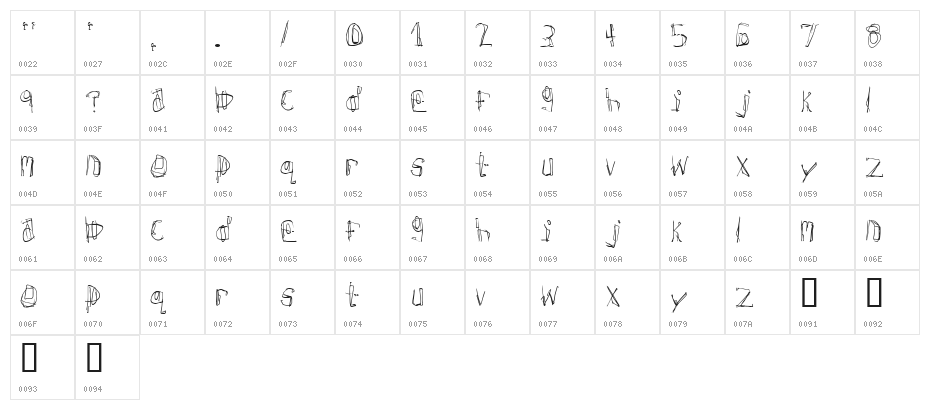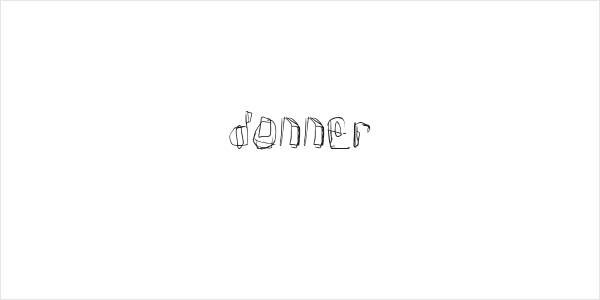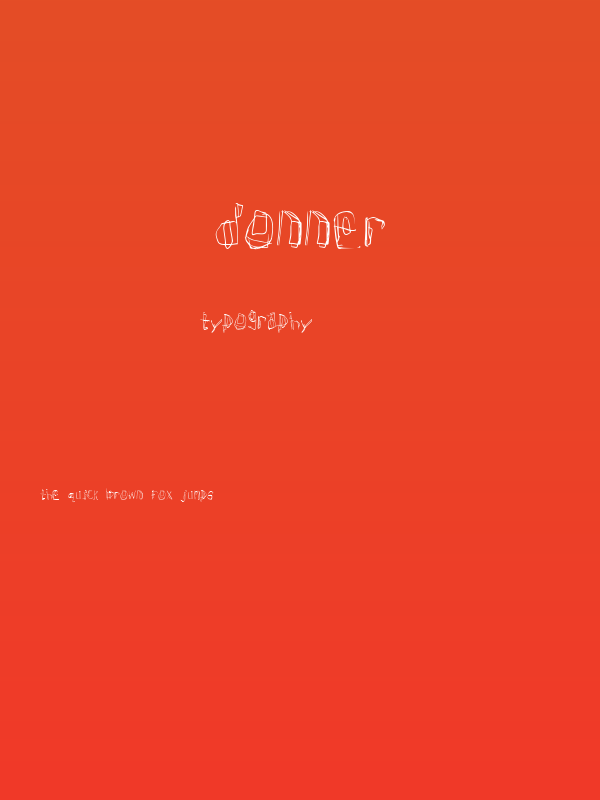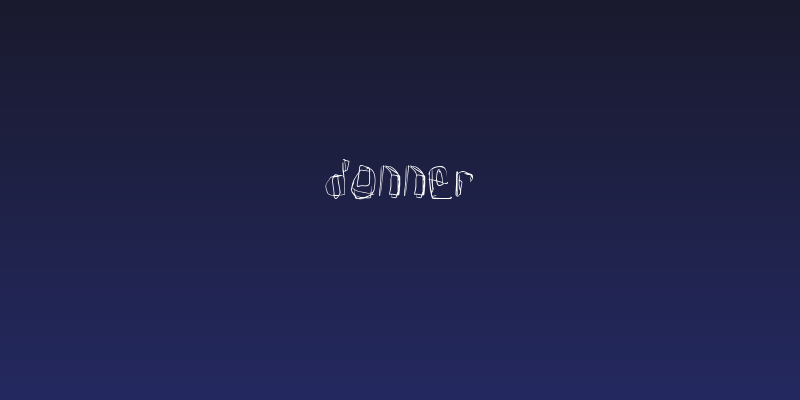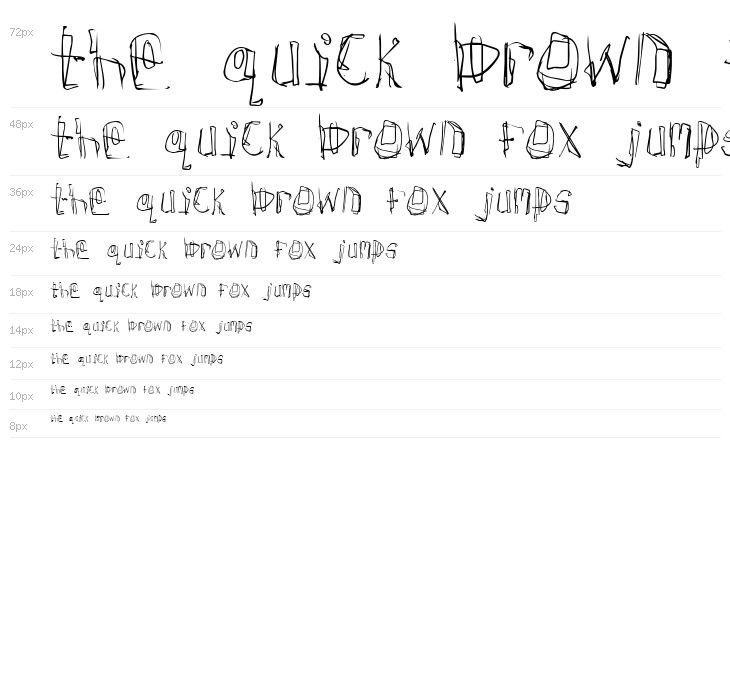
Donner Font
Donner Description
This font features a highly decorative and artistic style, characterized by its sketch-like, hand-drawn appearance. Each character is uniquely crafted with irregular lines and varying stroke widths, giving it a dynamic and expressive feel. The uppercase and lowercase letters maintain a consistent aesthetic, with exaggerated curves and angles that create a sense of movement. The numbers and special characters follow the same artistic approach, ensuring a cohesive look across all elements. This font's distinct style makes it stand out, offering a creative and unconventional option for design projects.
| Overall Style | Artistic, Expressive |
| Use Case | Logos, Posters, Creative Branding |
| Proposed Projects | Ideal for artistic projects, creative branding, posters, and unique invitations. |